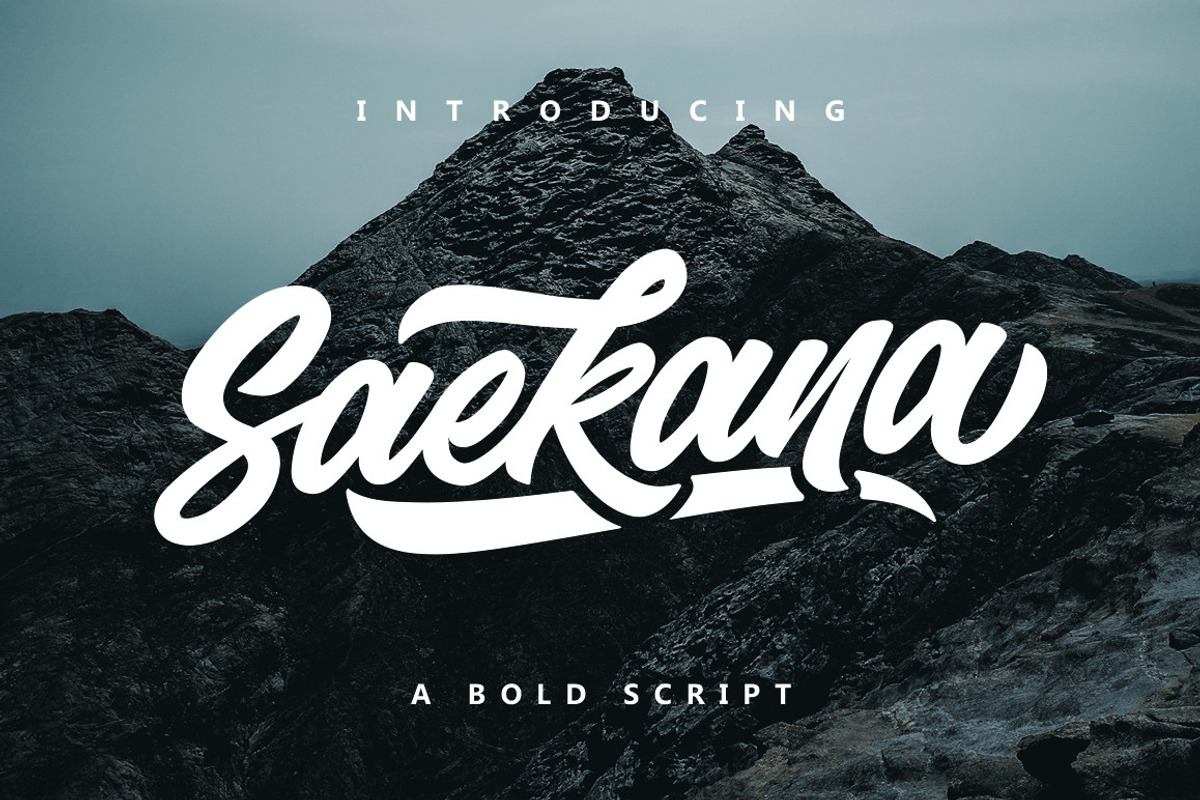
Saekana Script Free Download
Saekana Script Font Free Download
Saekana Script Font Free Download is an elegant and flowing typeface that captures the beauty of handwritten calligraphy. With its smooth curves and graceful strokes, this font is perfect for creating logos, invitations, branding, and personal projects that need a sophisticated, yet natural touch. Whether you're designing wedding invitations, greeting cards, or logo designs, Saekana Script Font Free Download offers a unique and stylish solution for adding a personal, artistic flair to your work. Its fluid, script design ensures your message is both beautiful and legible. Explore the charm and elegance of Saekana Script in personal projects before purchasing a commercial license, and let this beautifully crafted font elevate your designs.